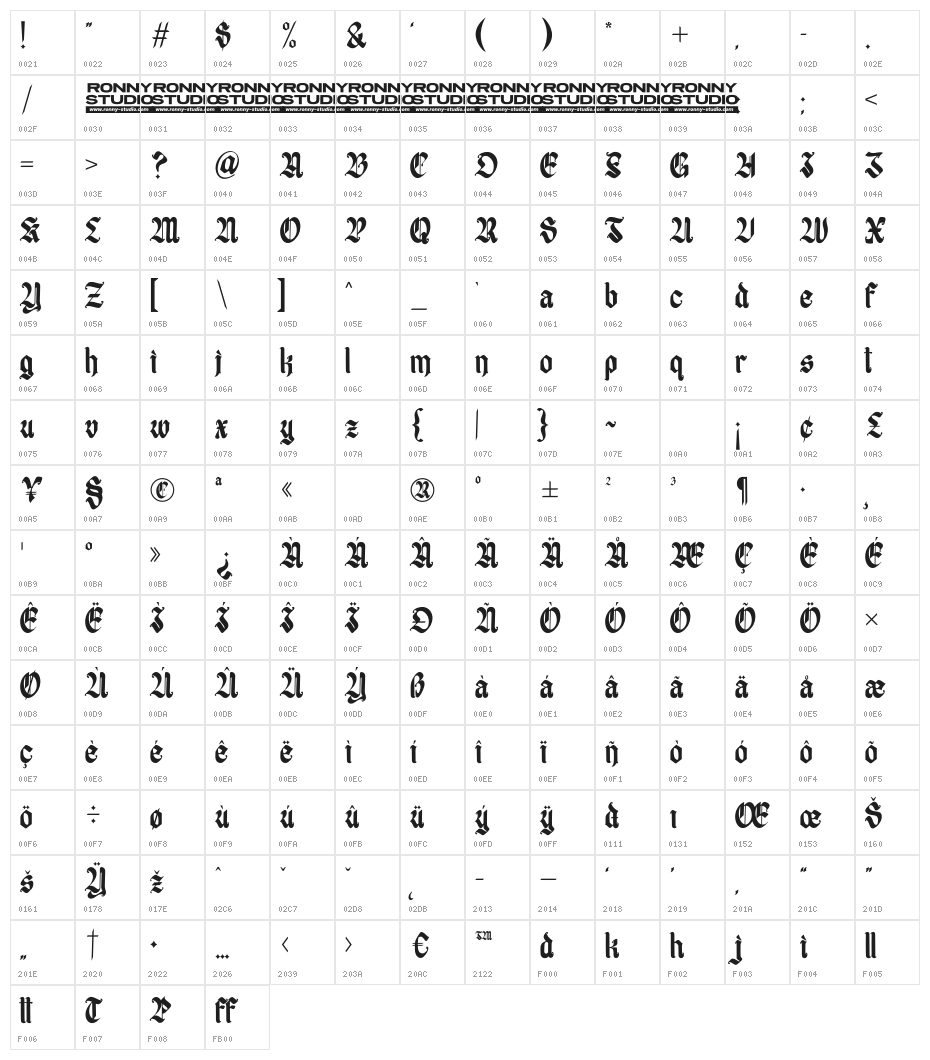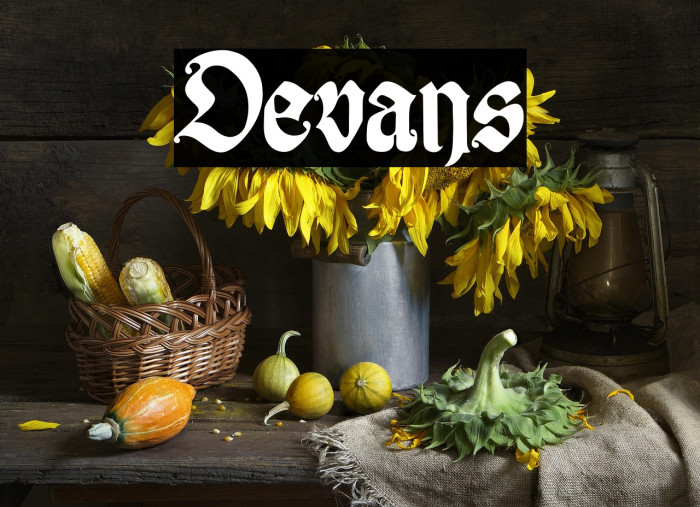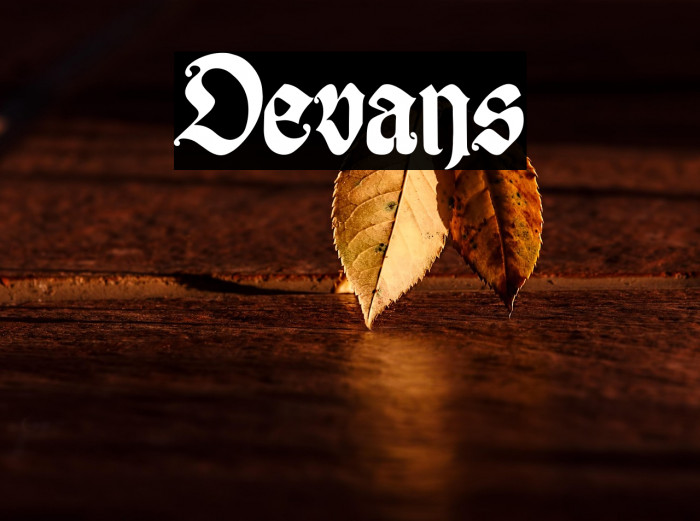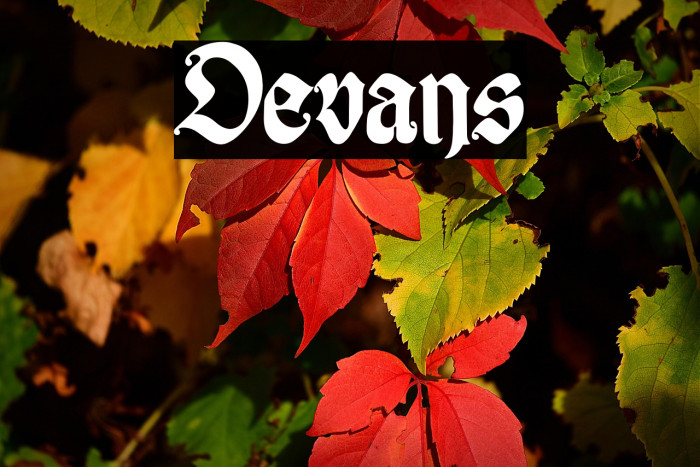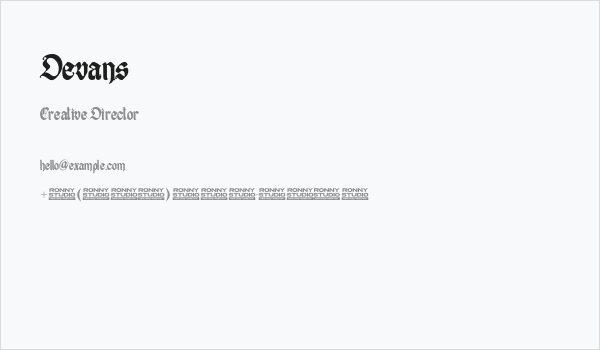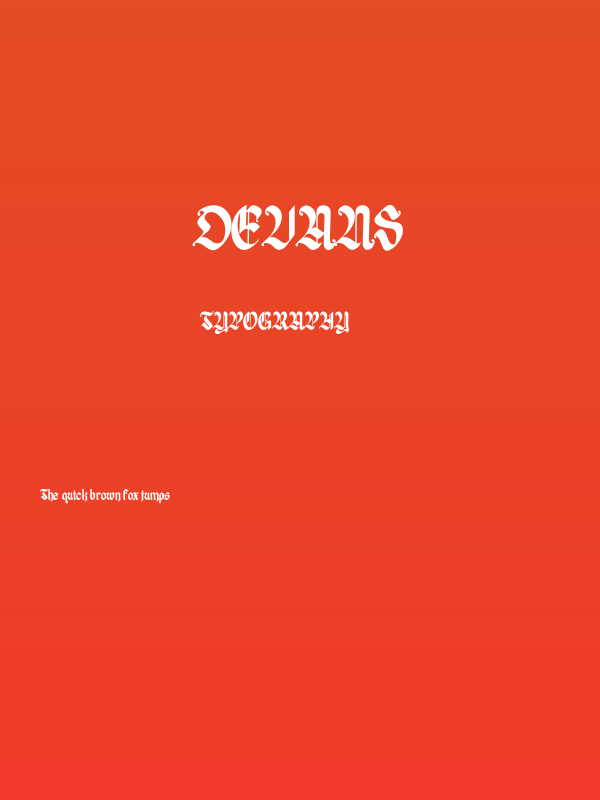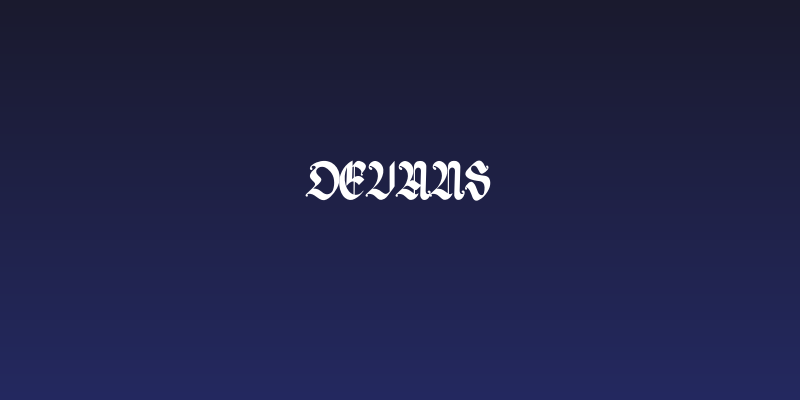
Devans Font
Devans Description
This font is a striking example of Blackletter style, characterized by its intricate and ornate letterforms. The uppercase and lowercase letters exhibit sharp, angular lines with dramatic flourishes, creating a sense of historical elegance. The font's bold and dense appearance is reminiscent of medieval manuscripts, making it ideal for projects that require a touch of antiquity and sophistication. The special characters maintain the same ornate style, ensuring consistency across all text elements. This font is perfect for creating impactful headlines, logos, or any design that seeks to evoke a sense of tradition and authority.
| Proposed Projects | Ideal for historical-themed designs, book covers, posters, and branding that requires a traditional and authoritative look. |